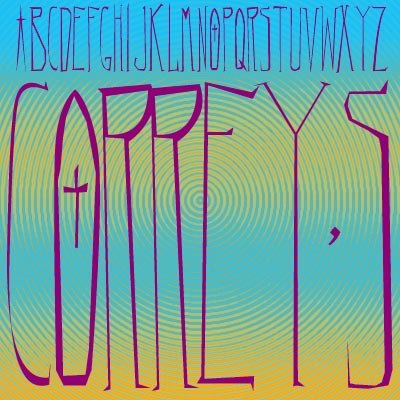
Correy's
Correy's font by Eric Wiryanata is a free handwritten typeface that feels like a faint pencil line caught mid-thought. Its tall, looping curves and whisper-thin strokes give every word a fragile, airy presence, with quirky details that keep it from ever looking mechanical or stiff. Used large, those long brackets and loose connections create a gentle, intimate rhythm that quietly draws attention instead of shouting for it.
Using Correy's, you can give quotes, journal titles, indie posters, zines, greeting cards, and social media graphics a light, personal touch that still reads clearly. The spacing leaves plenty of white space to breathe, making this free font shine on minimalist layouts or soft, textured backgrounds. Try pairing Correy's with a clean sans serif for body text and keep the script at headline sizes so its delicate character stays crisp and legible.